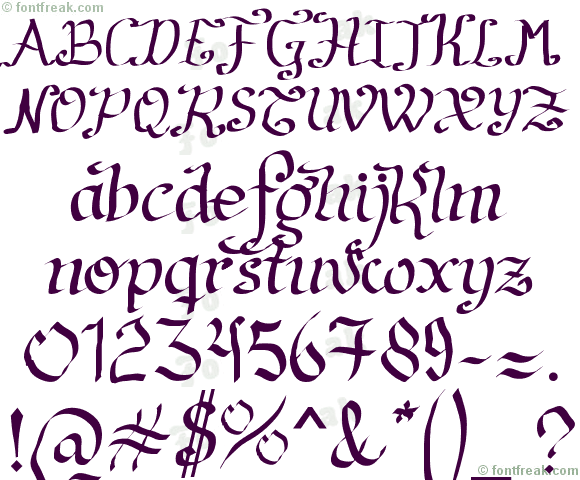
Artesanias
About Artesanias
Artesanias, designed by Juan Casco, is a captivating decorative font that embodies a unique blend of artistry and elegance. This font stands out with its intricate strokes and fluid forms, characterized by a medium stroke weight that offers a balanced contrast throughout each letter. The playful yet sophisticated design features decorative swirls and flourishes that enhance its visual appeal, making it a delightful choice for various creative projects. The spacing between characters is thoughtfully designed, ensuring readability while maintaining the font's artistic essence.
The Artesanias font is particularly well-suited for a variety of use cases. It shines in wedding invitations, where its romantic style can beautifully complement the theme of love and celebration. Additionally, it is an excellent choice for crafting unique movie posters, lending a touch of whimsy that can attract audiences' attention. Restaurant menus can also benefit from Artesanias, as its distinctive flair adds an element of charm that enhances the dining experience. Furthermore, small business owners looking to create eye-catching branding materials will find this font invaluable, as it can help convey a sense of creativity and sophistication.
Targeting graphic designers, content creators, and small business owners, Artesanias provides a versatile option for those seeking to elevate their visual communications. The font’s artistic character allows it to stand out in a crowded market, making it memorable and engaging.